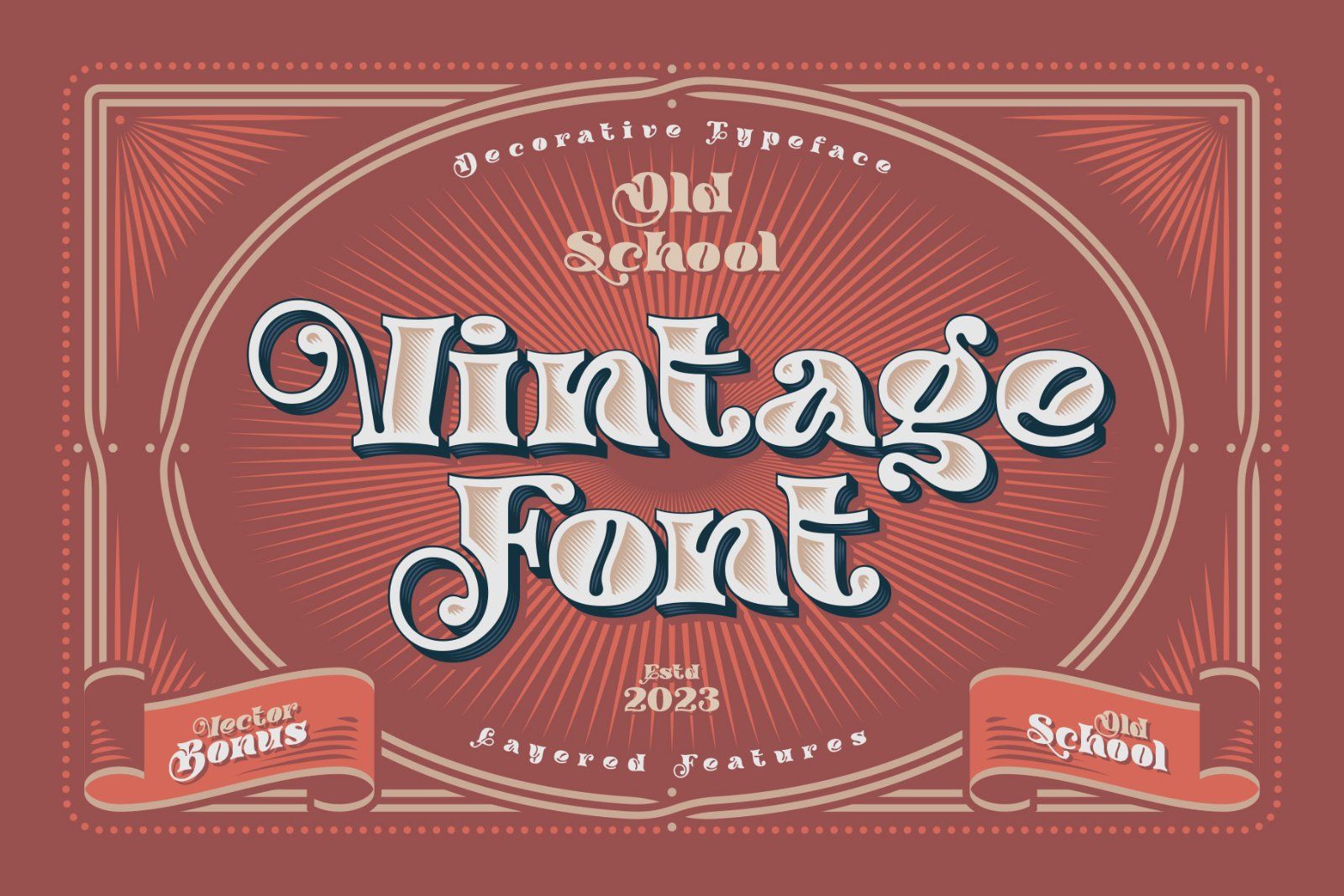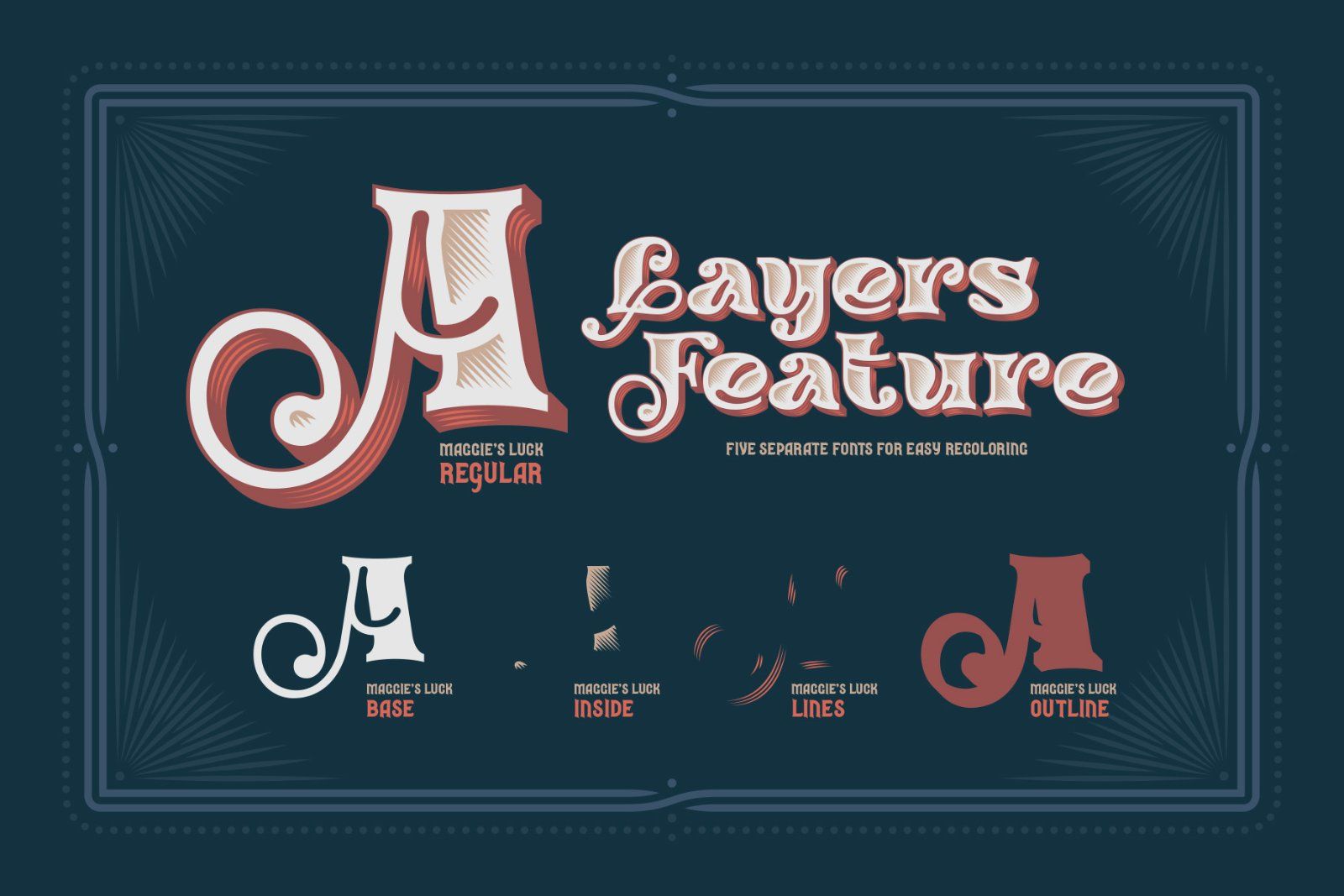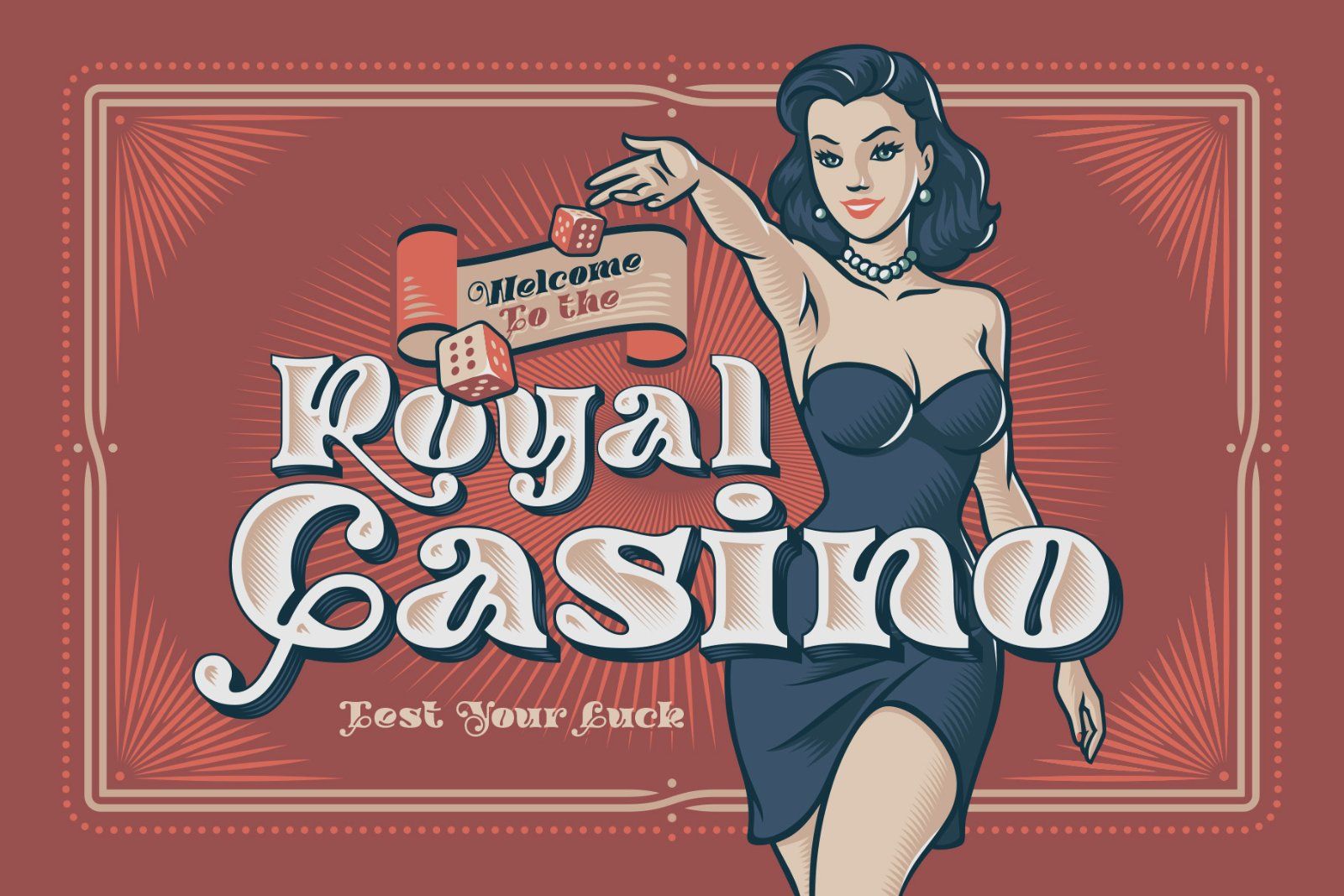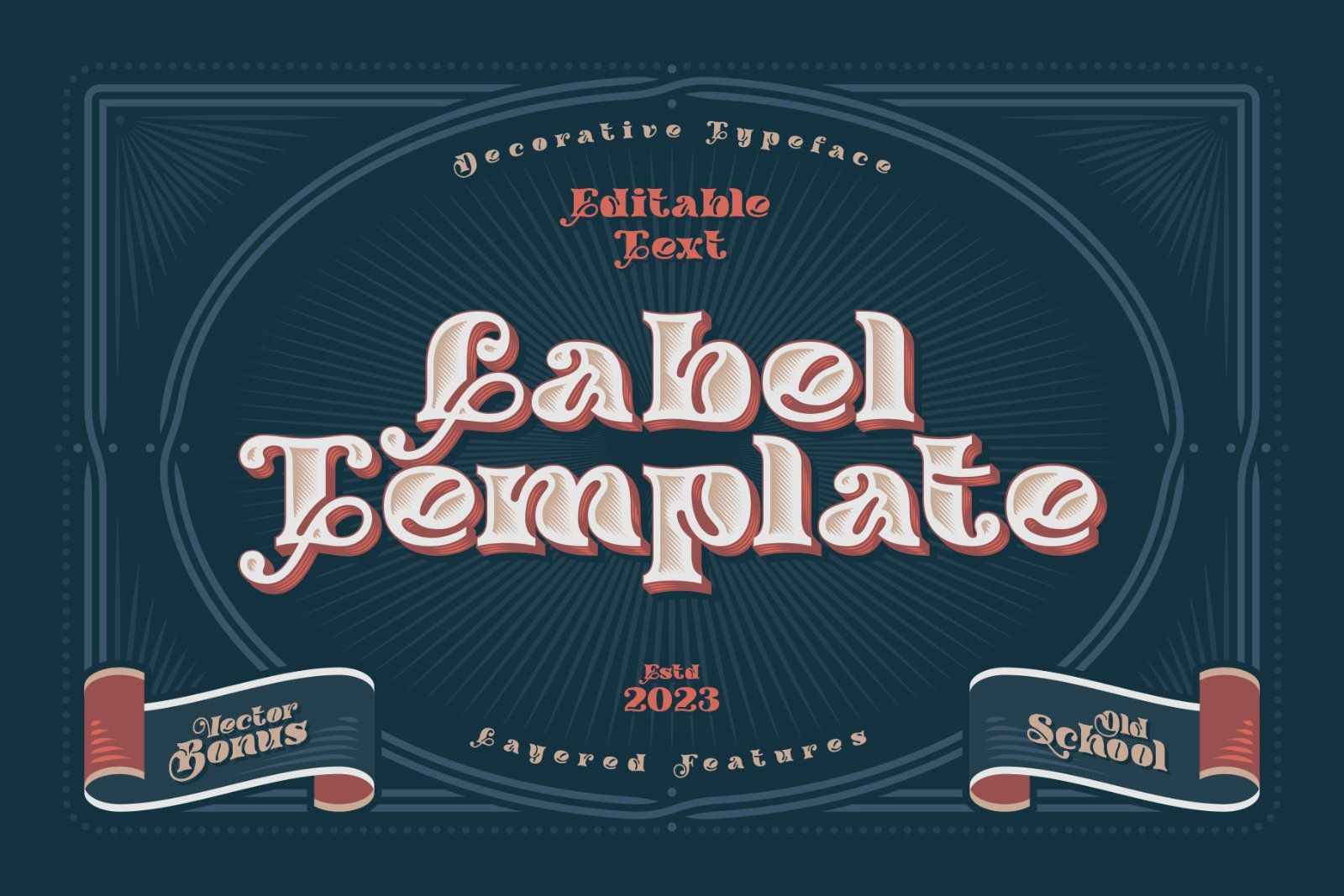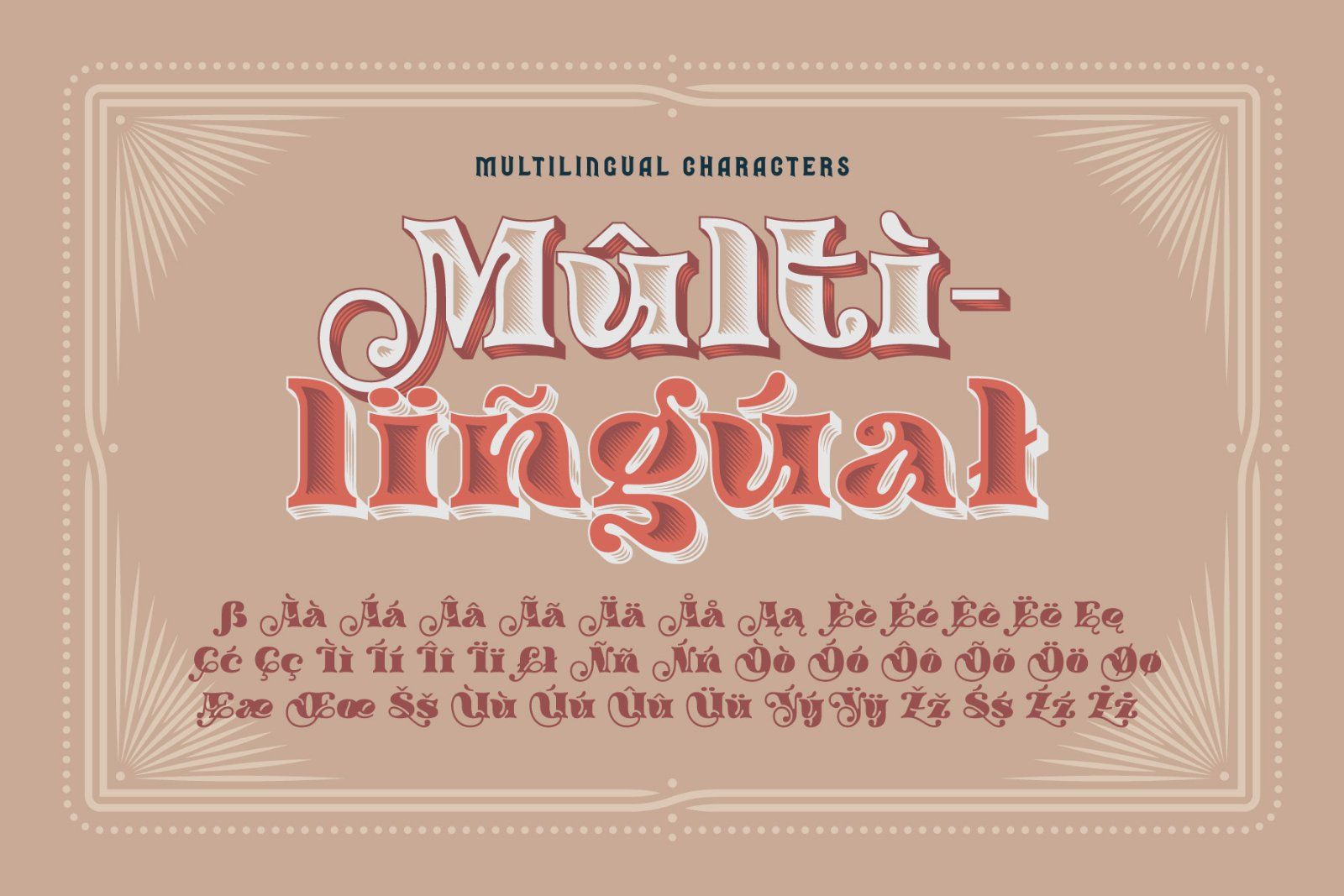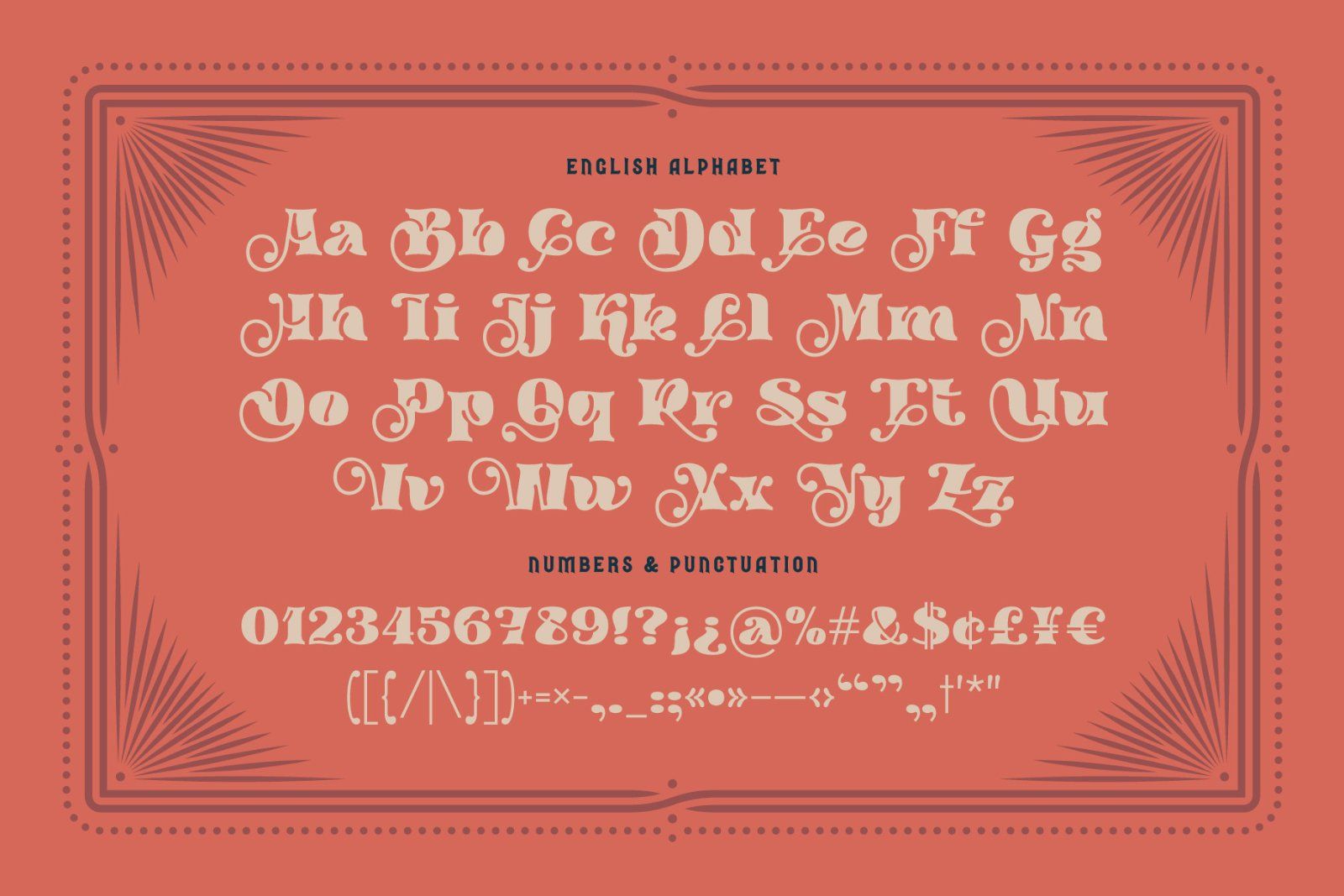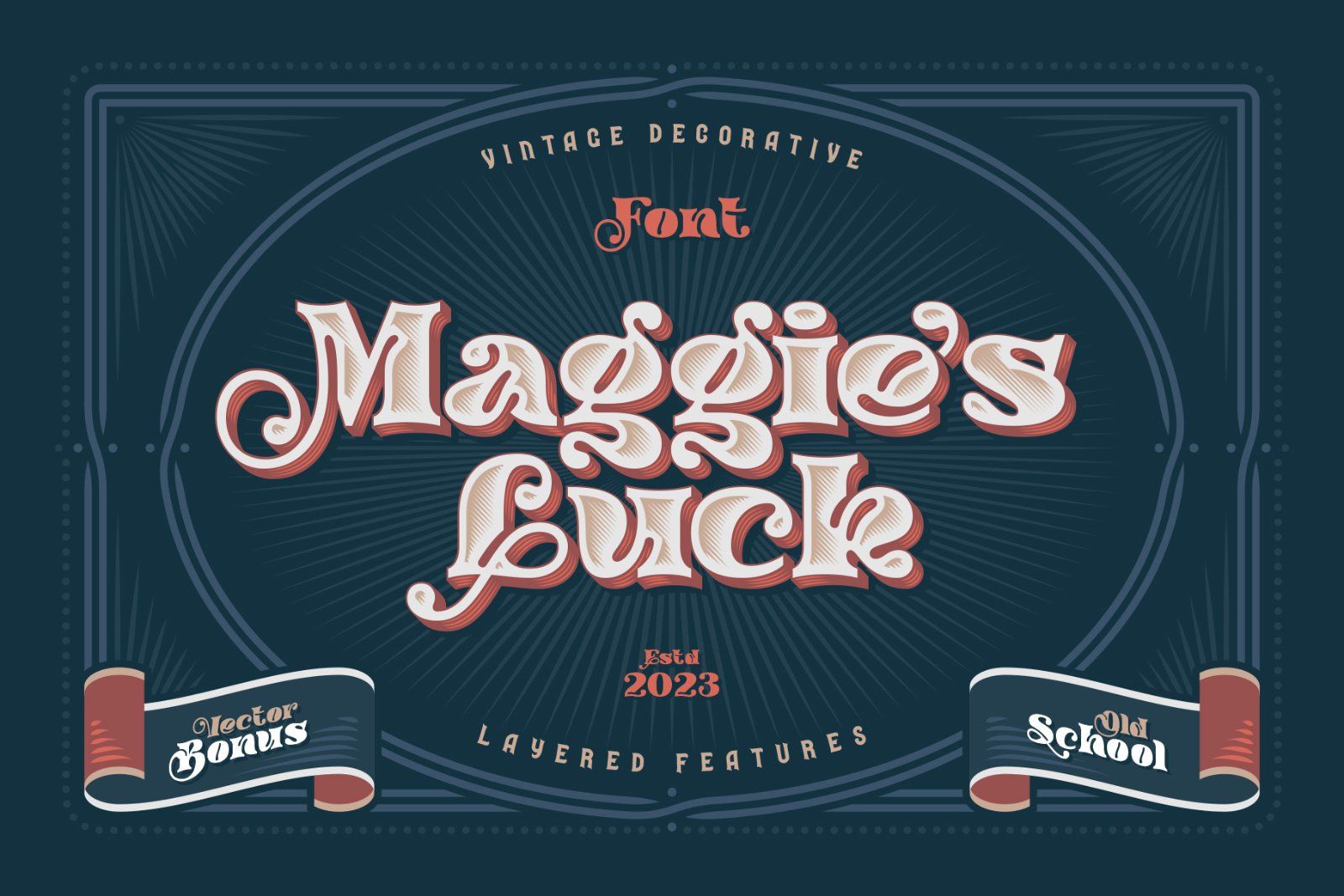
Hello! Introducing a layered display font — Maggie's Luck. It's a vintage style bold typeface with layered features. Maggie's Luck Font has five "fonts-layers" for more convenient recoloring. This font has multilingual support (check out a screenshot with available letters and signs).
As a bonus, you'll get a vector label template and a casino poster with an illustration of a pretty woman throwing a dice cubes. These vector files are available in EPS & AI formats with editable text (you'll need an appropriate software, like Adobe Illustrator to work with these files).